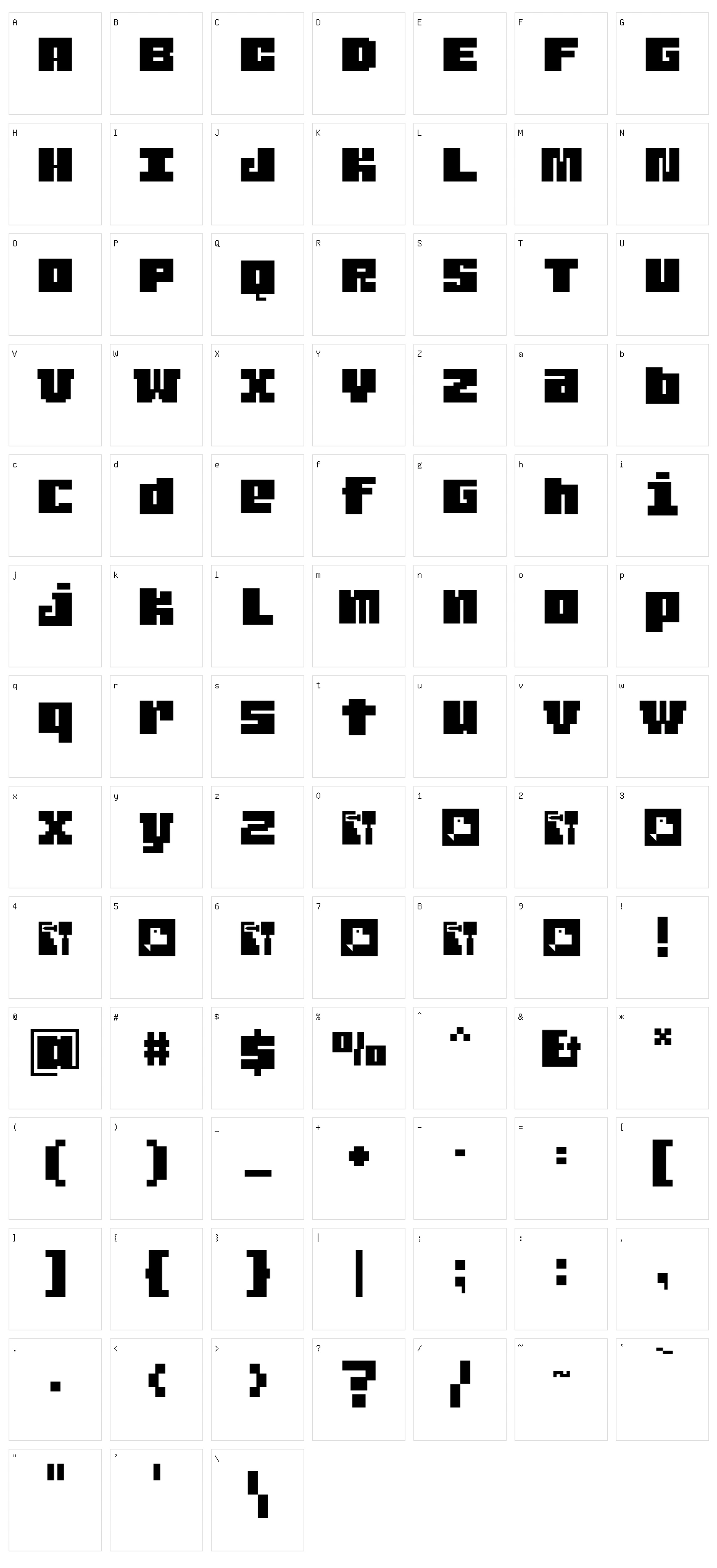
The free font Judera Flat is carefully designed by deFharo, showcasing a thoughtful balance of creativity and usability and falls under the Square font style. When you download the ZIP file, it contains only 1281.29 KB of font files, making it lightweight and quick to download. Please review the license details below to understand permitted usage and distribution rights. If license information is not available, we recommend using this font for personal projects only or contacting the author directly for commercial usage permissions.